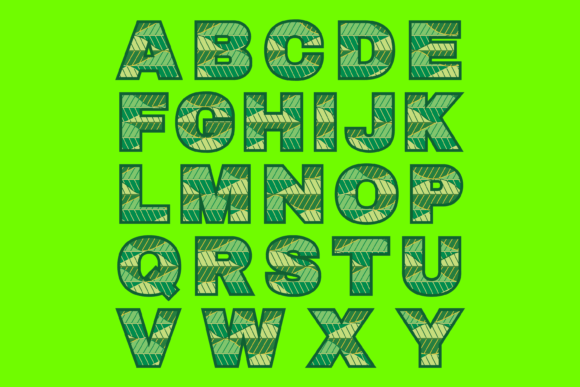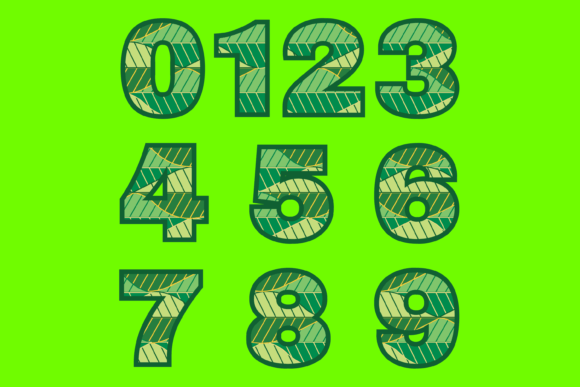
The Ultimate Guide to Green Leaf Font: A Botanical Masterpiece
I’ll never forget the time I was working on a project for a client who wanted a custom botanical design. I had spent hours scouring the internet for the perfect font, but nothing seemed quite right. That was until I stumbled upon Green Leaf Font. It was love at first sight! The beautiful, intricate details of the leaves and stems were exactly what I needed to bring my design to life. In this article, I’ll share my experience with Green Leaf Font, its features, and how to get the most out of it.
An Honest Review of Green Leaf Font
Green Leaf Font is an incredibly cool color font with a botanical theme that’s perfect for custom designs, DIY crafts, or any creation that requires a lovely touch. Here are some things I love about it:
- ✨ Beautiful, intricate details that add a touch of elegance to any design
- 🌿 A wide range of glyphs and stylistic alternates to give you creative freedom
The Backstory of Green Leaf Font
Green Leaf Font was designed by a team of creatives who wanted to bring a touch of nature to the digital world. Inspired by the beauty of botanical illustrations, they created a font that’s both elegant and playful. The result is a font that’s perfect for designers, crafters, and creative hobbyists who want to add a touch of whimsy to their designs.
| Font Name | Green Leaf Font |
| Author | JUSTTYPE |
| What type of font is Green Leaf Font? | Green Leaf Font is a color font (Opentype-SVG) that’s compatible with PhotoShop, Illustrator, Silhouette, and Inkscape. |